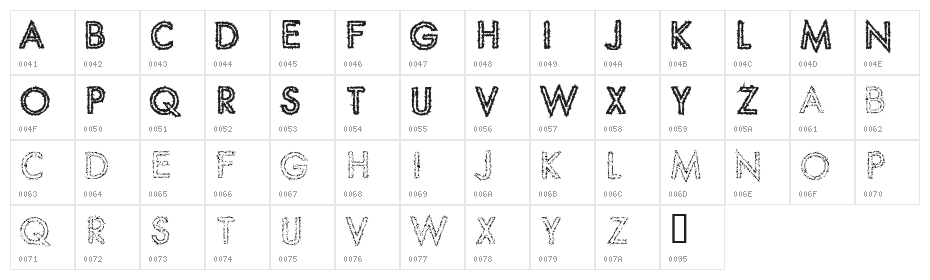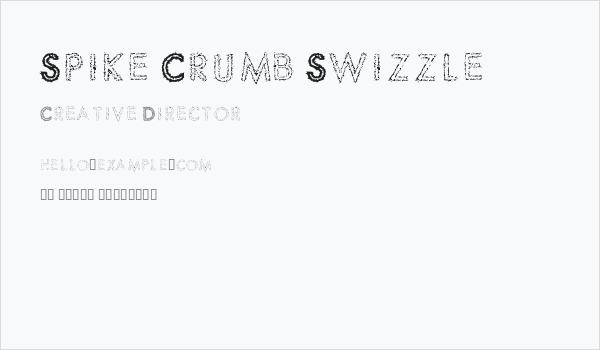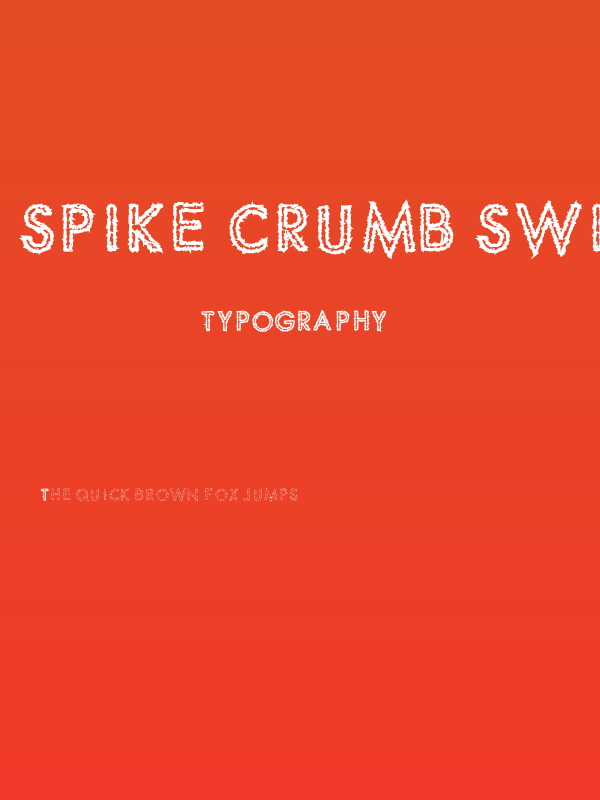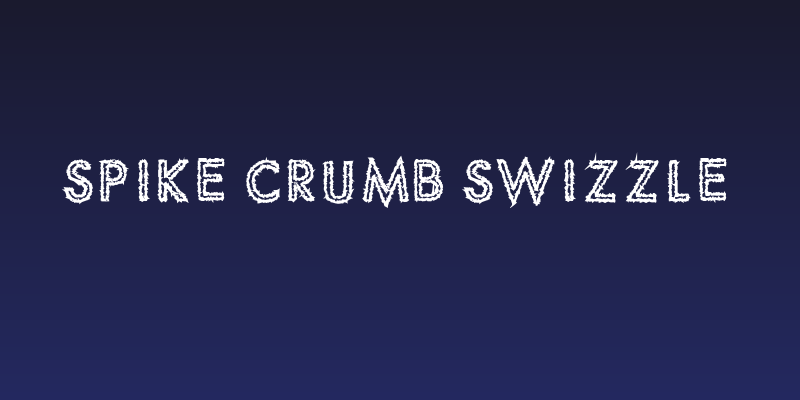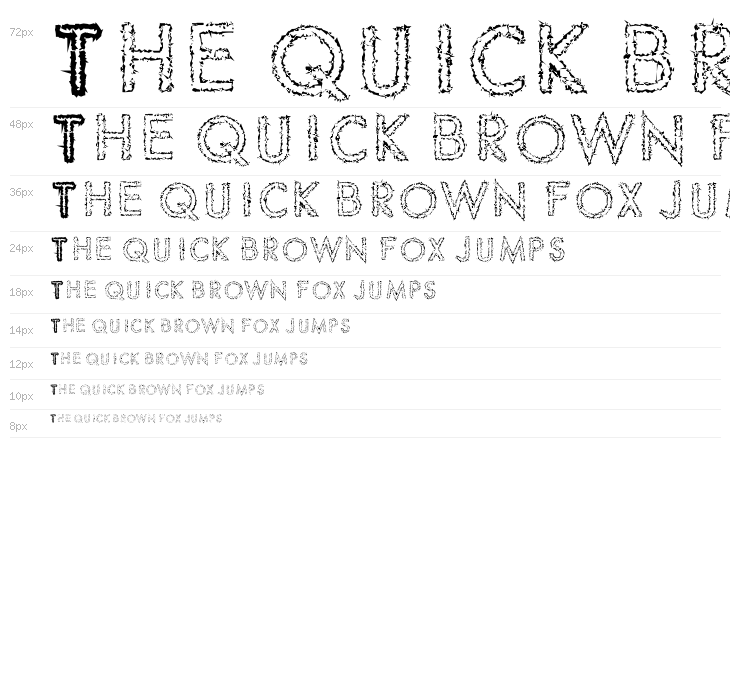
Spike Crumb Swizzle Font
Spike Crumb Swizzle Description
This font features a unique, textured design that gives each character a crumbly, distressed appearance. The uppercase letters are bold and prominent, with a rough, jagged edge that adds a sense of dynamism and energy. The lowercase letters maintain the same textured style, providing a cohesive look throughout. The numbers and special characters are designed with the same attention to detail, ensuring consistency across all elements. This font's distinctive style makes it stand out, offering a creative and artistic flair that can enhance various design projects.
| Use Case | Headlines, Posters, Artistic Designs |
| Proposed Projects | Ideal for artistic projects, posters, album covers, and any design requiring a bold, textured look. |